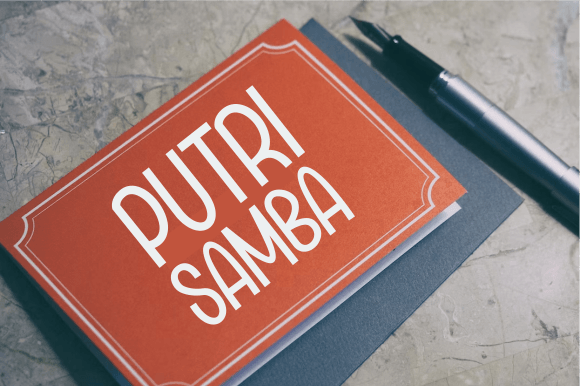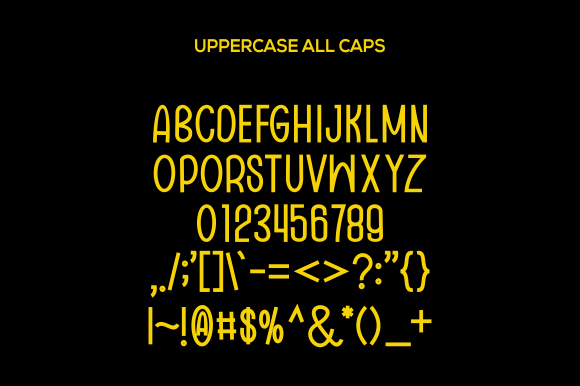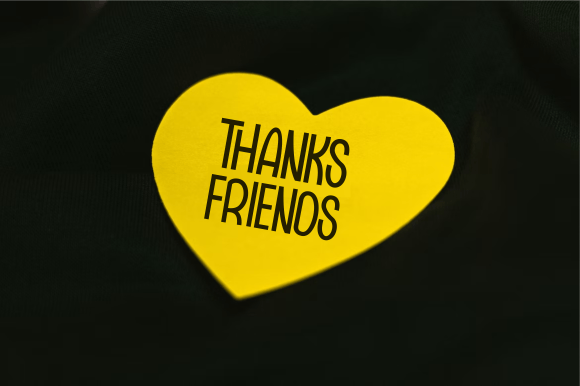
Putri Samba Font
About Putri Samba Font
“Putri Samba” is a delightful and approachable handwritten font that exudes a sense of fun and friendliness. This font is perfect for a wide range of applications, making it a versatile and reliable choice for various occasions and projects. Whether you’re using it for crafts, digital design, presentations, or creating greeting cards, “Putri Samba” has the potential to become your favorite go-to font, no matter the occasion!
“Putri Samba” font features a playful and friendly aesthetic that adds a touch of warmth and approachability to your designs. Its handwritten style makes it adaptable for any project, from creating handmade crafts to designing digital graphics.
For crafts and DIY projects, “Putri Samba” brings a sense of creativity and fun. It adds character to your creations, making them unique and personalized.
In digital design and presentations, “Putri Samba” adds a touch of friendliness and charm that resonates with your audience. It ensures that your content is engaging and relatable.
When it comes to greeting cards, “Putri Samba” enhances your messages and sentiments with a warm and inviting style. It ensures that your cards convey heartfelt wishes and greetings.
In summary, “Putri Samba” is more than just a font; it’s a versatile and friendly companion that brings a sense of fun and approachability to your work. Its personalized style and adaptability make it suitable for a wide range of projects, allowing you to create designs that are not only visually appealing but also emotionally engaging. Embrace “Putri Samba” and confidently infuse your creative projects with a touch of warmth and friendliness that will resonate with your audience.